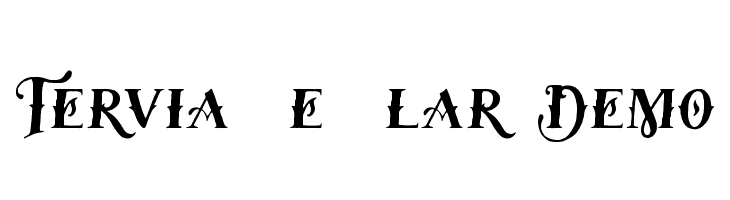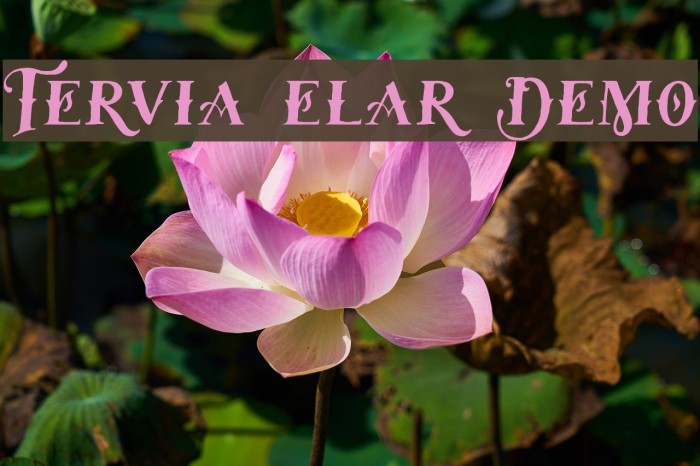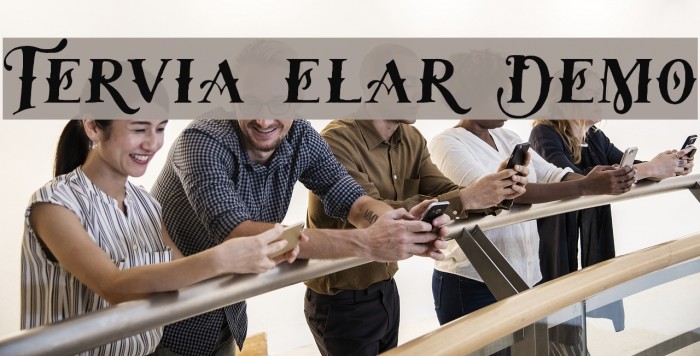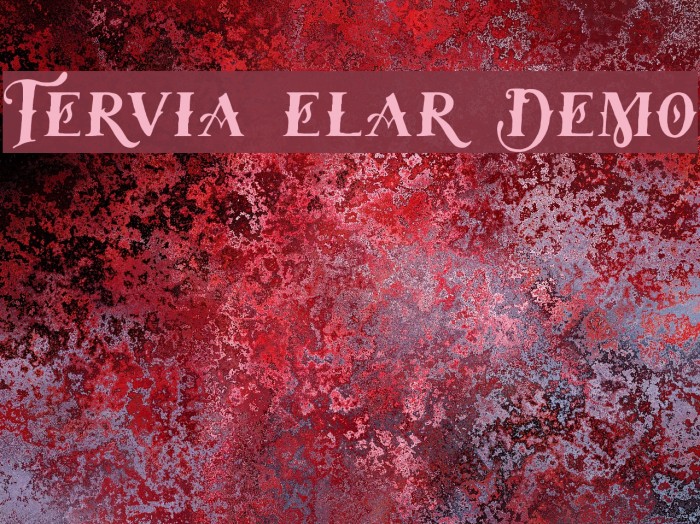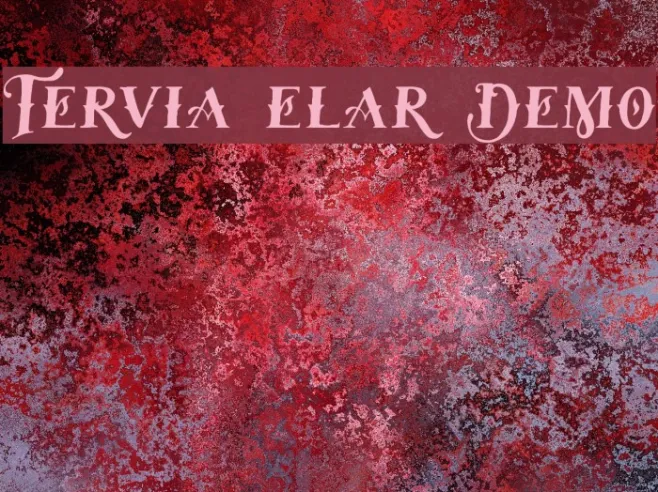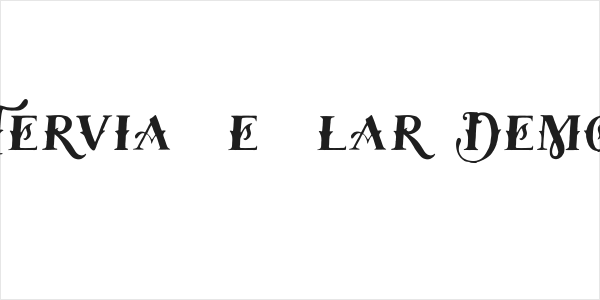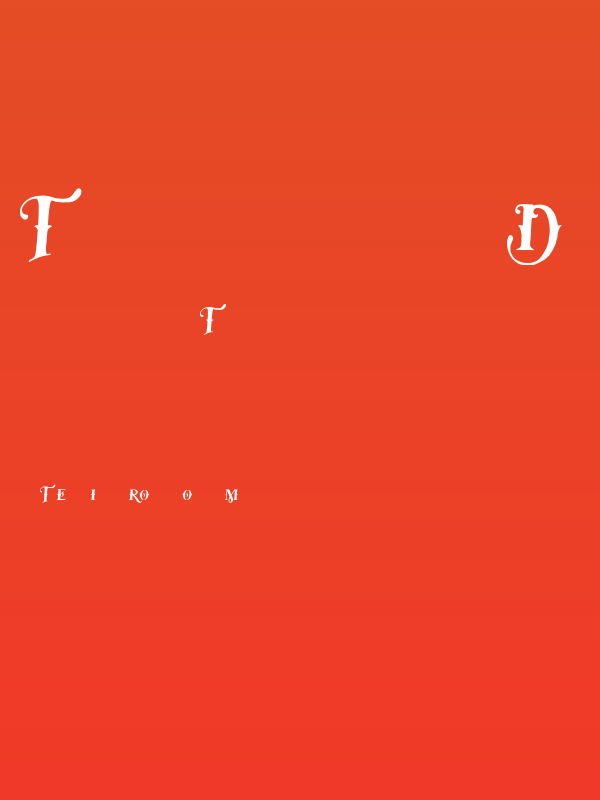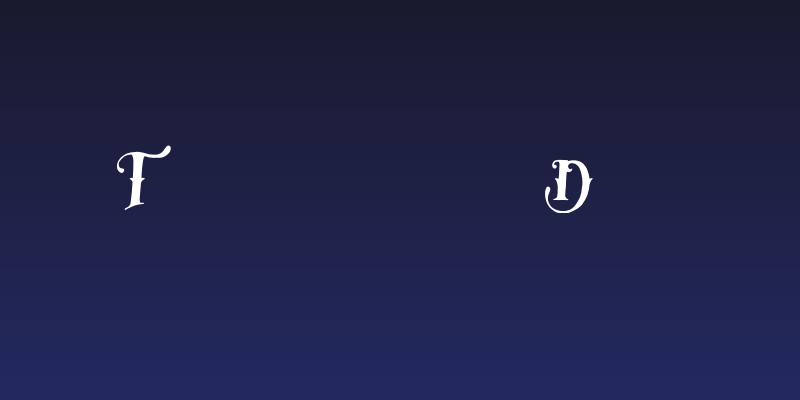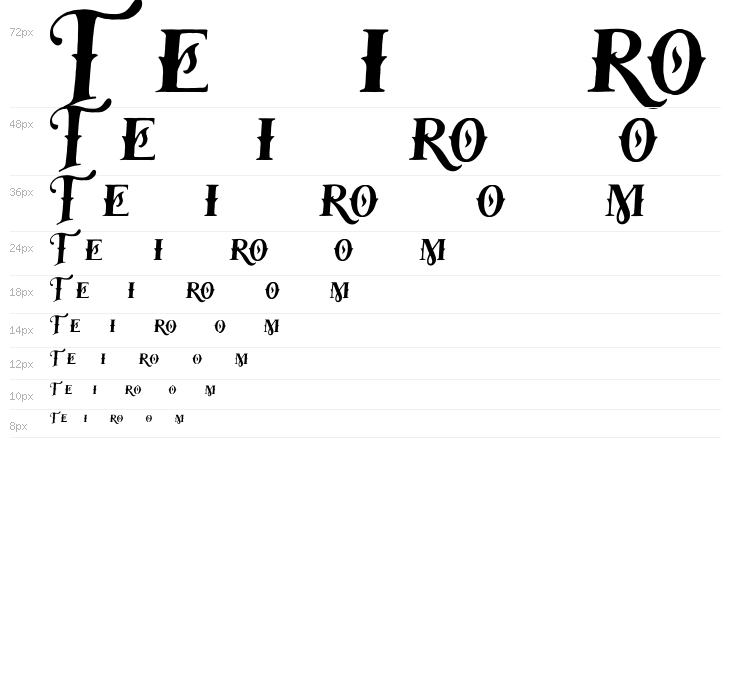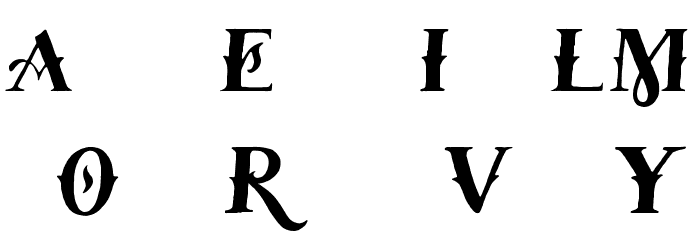
Tervia Regular Demo Font
Tervia Regular Demo Description
This font exhibits a decorative and ornate style, characterized by its intricate and elaborate serifs. The letters have a distinct flair, with exaggerated curves and flourishes that give it a vintage and classical appearance. The uppercase letters are particularly bold and prominent, while the lowercase letters maintain a consistent style with slightly less ornamentation. The overall look is reminiscent of traditional calligraphy, making it suitable for projects that require a touch of elegance and sophistication.
| Proposed Projects | Ideal for wedding invitations, historical themed events, luxury branding, and decorative signage. |